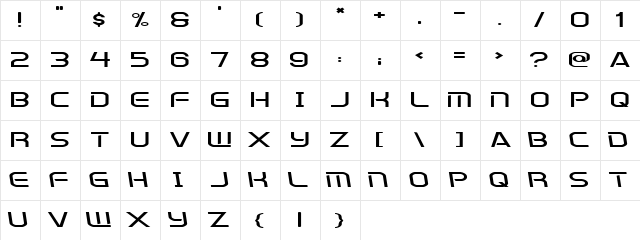
Kometenmelodie 2 Regular Font Preview
Kometenmelodie 2 Regular
Design Context for Kometenmelodie 2 Typeface
Kometenmelodie 2 offers clean, dependable letterforms without strong stylistic allegiance, making it a practical choice for designers who need flexibility.